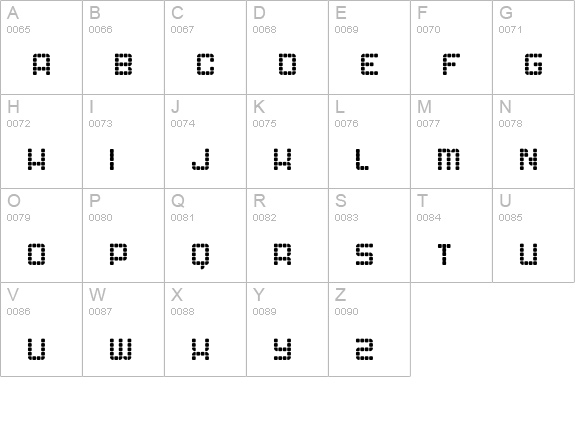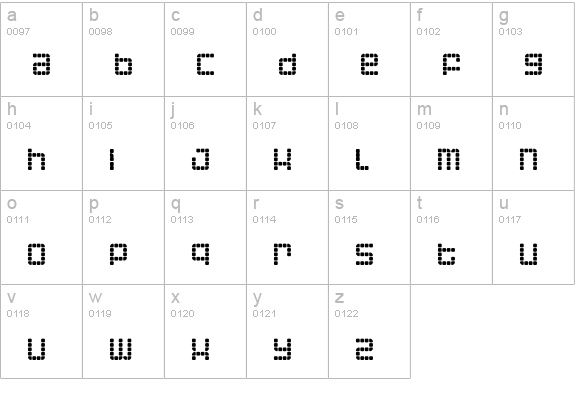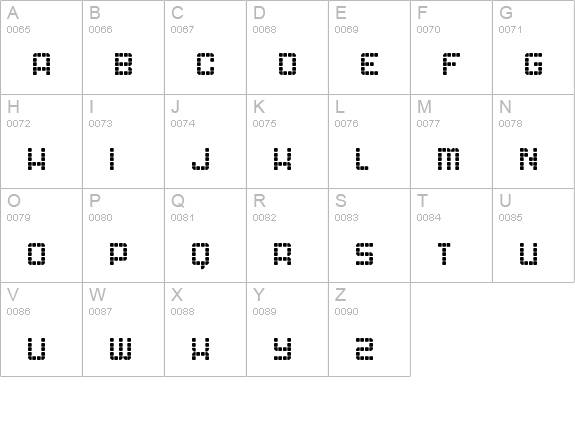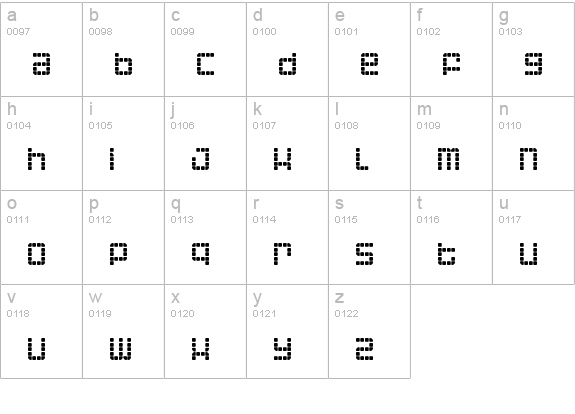
Astronaut II font is a futuristic and bold typeface that embodies the spirit of exploration and innovation. With its sleek and modern design, this font is perfect for projects that require a cutting-edge look. The geometric shapes and sharp angles of Astronaut II give it a dynamic and space-age feel, making it ideal for sci-fi themed designs, technology-related projects, and more. What sets Astronaut II font apart is not only its striking visual appeal, but also the fact that it is available for free! You can easily download this unique font at FontsMarket.com and start using it in your creative projects today. Whether you're designing posters, websites, logos, or any other type of visual content, Astronaut II font will add a touch of futuristic flair that will make your work stand out. Explore the possibilities with this free and versatile font and take your designs to new heights with Astronaut II.